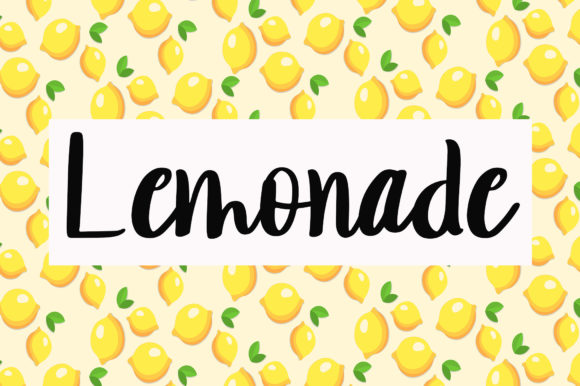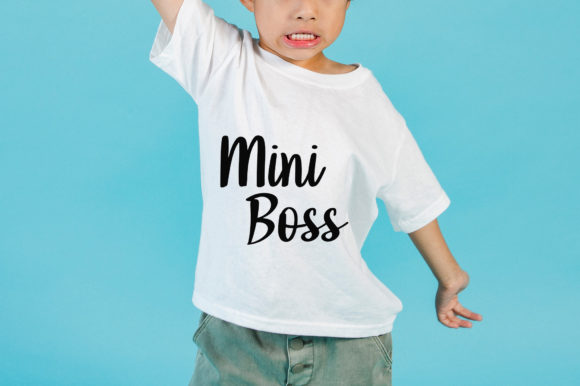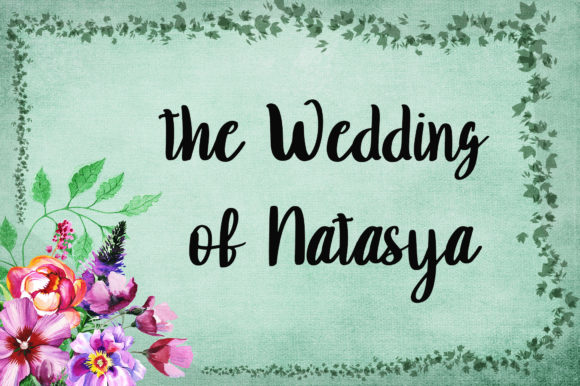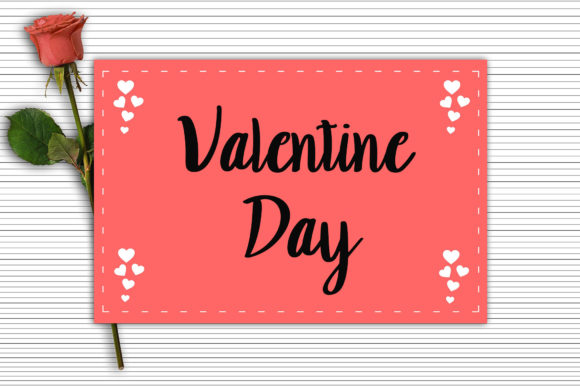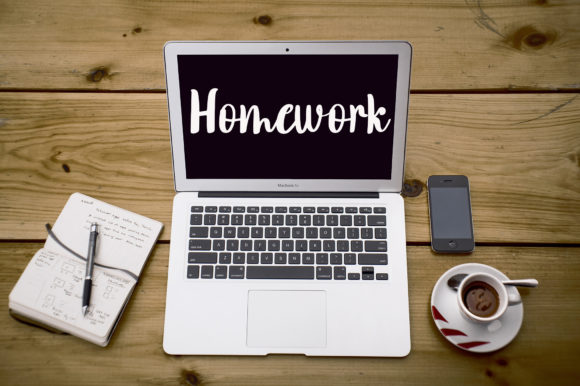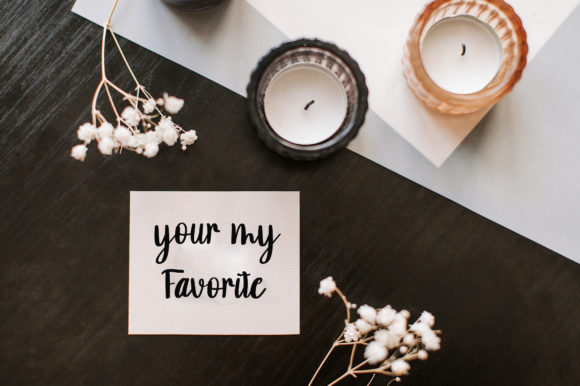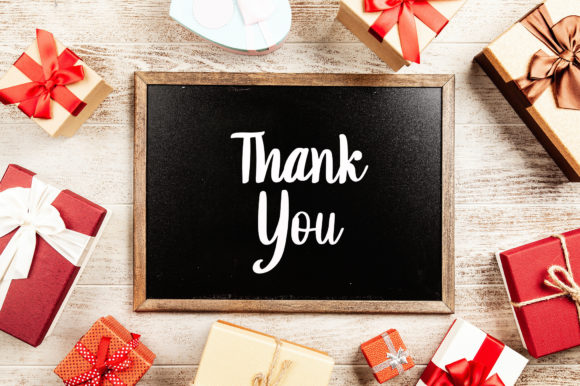
Lemonade Font
About Lemonade Font
Lemonade is a lovely and delicate script font that exudes elegance and class. This font was particularly crafted for those who need a beautiful and refreshing look to their designs.